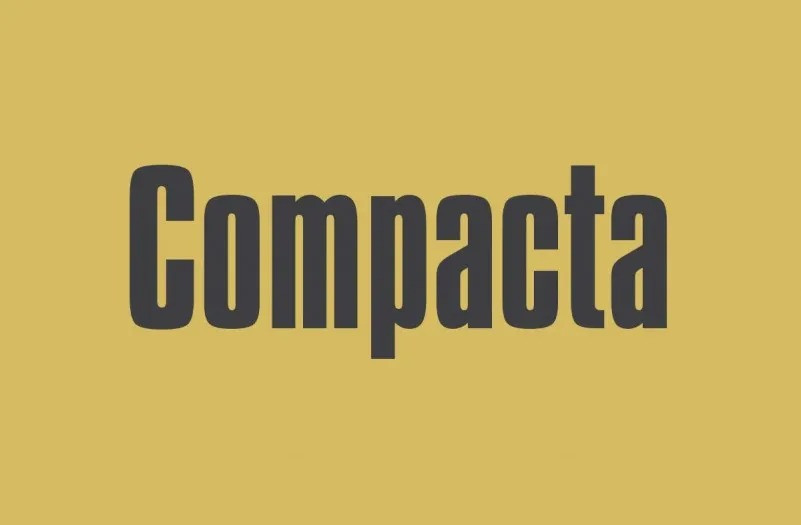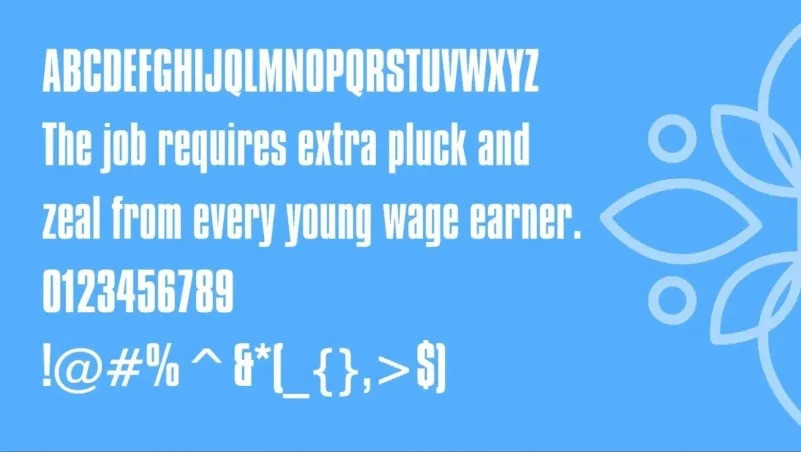
Compacta Sans Serif Font is a high-quality sans-serif typeface that was inspired by the Stencilled alphabets and it was designed in 1963 by a famous graphic designer Fred Lambert for A London-based company. This was an ideal typeface of the British designers in the mid of seventeenth century. This font is also a famous typeface the same as other sans-serif typefaces such as Impact font and Haettenschweiler font.
It has gotten tremendous popularity among designers and still is using by lots of designers. This font is also considered for media purposes and also acknowledged for printing projects. This font family comprises 9 styles and 5 weights including Regular, Bold, Italic, Light, and Black. This font family also has extensive language support including Latin, French, Cyrillic, and so on.